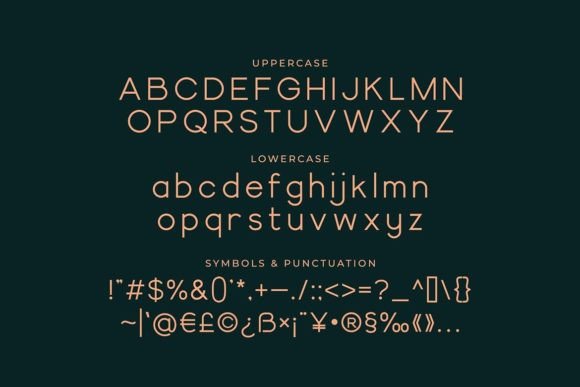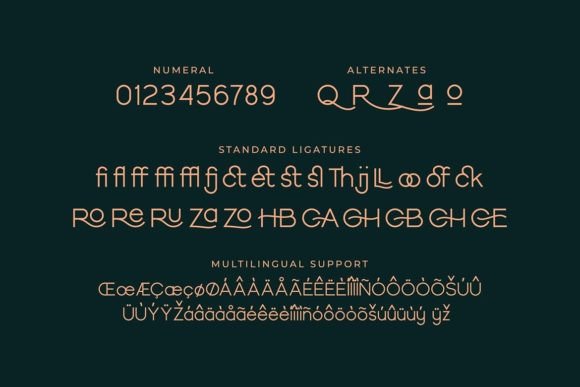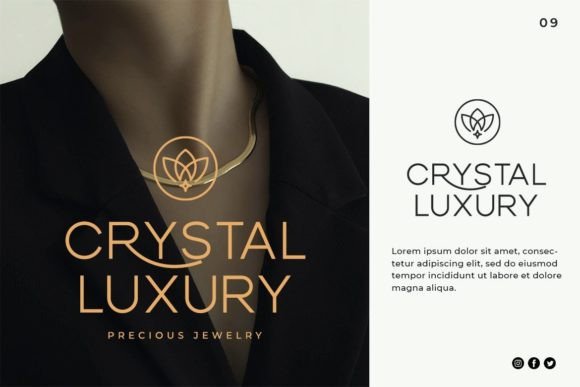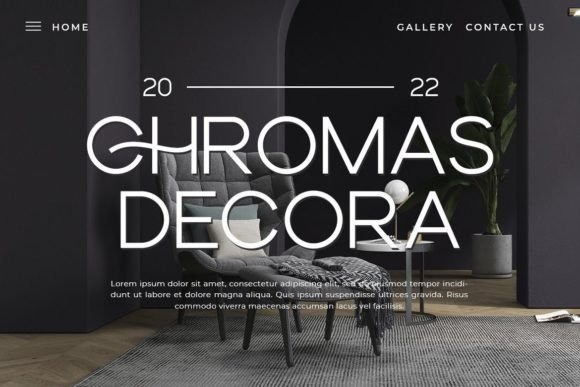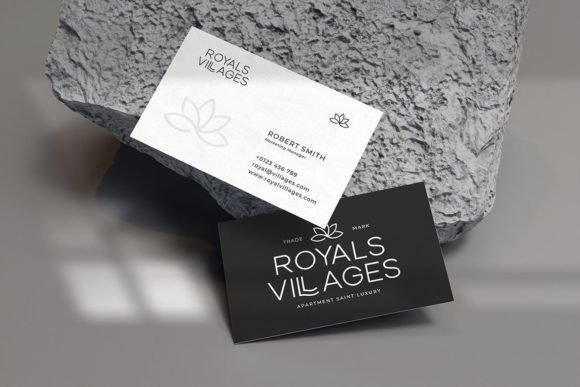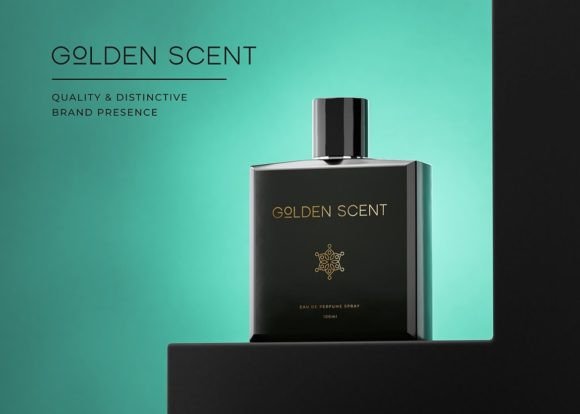
Introduction to Lucera Font
Lucera is an elegant and modern sans serif font.
No matter the topic, this font will be an incredible asset to your fontsโ library, as it has the potential to elevate any creation This font is PUA encoded which means you can access all of the amazing glyphs and ligatures with ease.
Key Features of Lucera Font